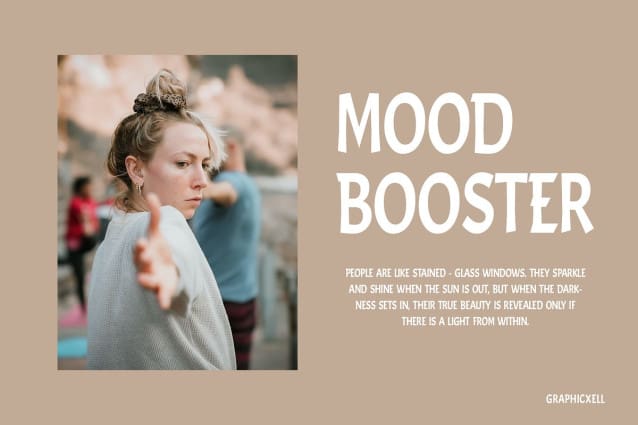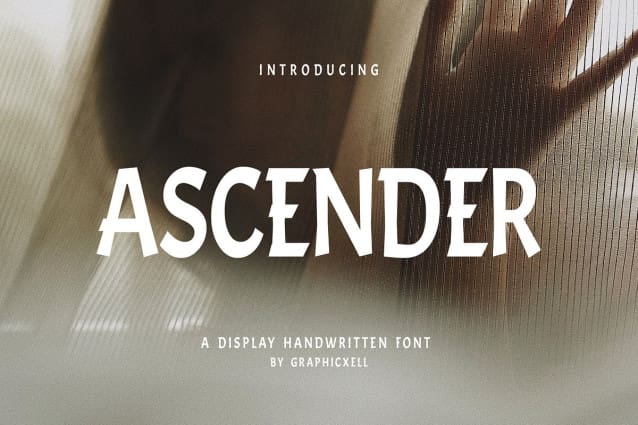
Ascender Display Font
Ascender Display Font inspired by the famous minimalist logo perfect for the purposes of designing templates, brochures, videos, advertising branding, logos, invitation, layout design, elegant crafting, beauty design and more.